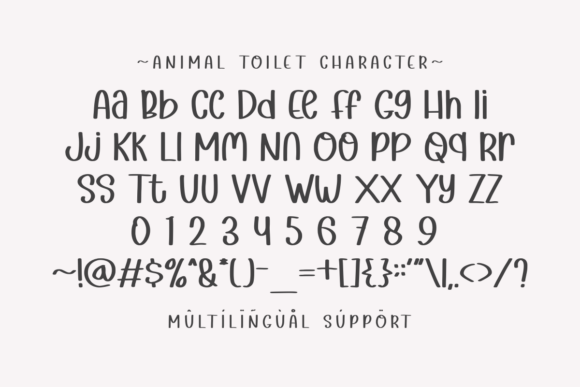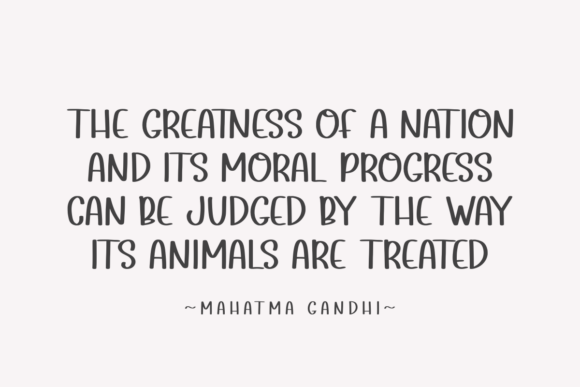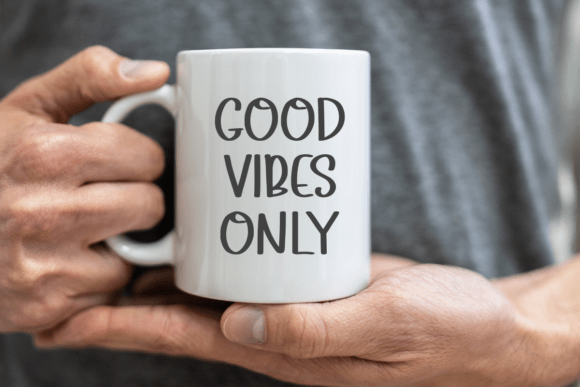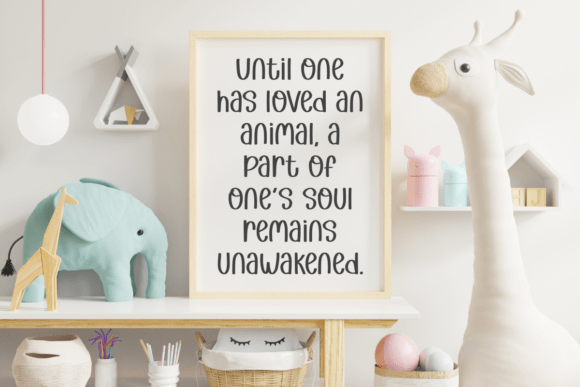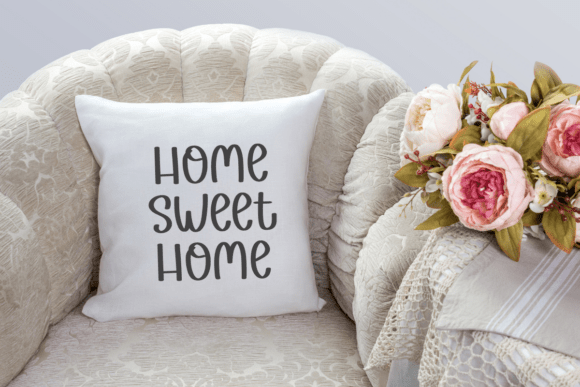
The Holiday Cheer You Need: A Deep Dive into Animal Toilet Font
It’s that time of the year again – the season for creating holiday-themed designs that bring joy and cheer to our loved ones. I still remember the year I was tasked with designing a Christmas card for my family’s annual newsletter. I spent hours browsing through font libraries, searching for the perfect sans serif font that would capture the festive spirit. That’s when I stumbled upon Animal Toilet Font, a playful and bold font that instantly brought my design to life.
An Honest Review of Animal Toilet Font
As a designer, I can be quite particular about the fonts I use. So, here’s my honest review of Animal Toilet Font:
• ✨ Playful curves and bold lines that scream holiday cheer
• 🎉 Perfect for creating eye-catching cards, invitations, and graphics
• 🤩 Available in various weights, allowing for flexible design options
While Animal Toilet Font is an excellent choice for holiday designs, there are a few things to keep in mind:
• ⚠️ Limited character set compared to other fonts, which might restrict its use in certain projects
• 🤔 Not ideal for body text or lengthy content, as it’s best suited for headings and titles
The Story Behind Animal Toilet Font
While the origins of Animal Toilet Font are shrouded in mystery, it’s clear that the designer aimed to create a font that captures the playful and festive spirit of the holiday season. Whether it’s a team of designers brainstorming ideas or a solo creator pouring their heart into the project, Animal Toilet Font is a testament to the power of creative expression.
Font Name Animal Toilet Font
What type of designs is Animal Toilet Font best suited for? Animal Toilet Font is perfect for creating holiday-themed cards, invitations, and graphics, such as Christmas cards, New Year’s Eve invitations, or Halloween party flyers.
Does Animal Toilet Font support OpenType features? Yes, Animal Toilet Font supports OpenType features, including glyphs and stylistic alternates. This allows you to create more creative and varied designs.